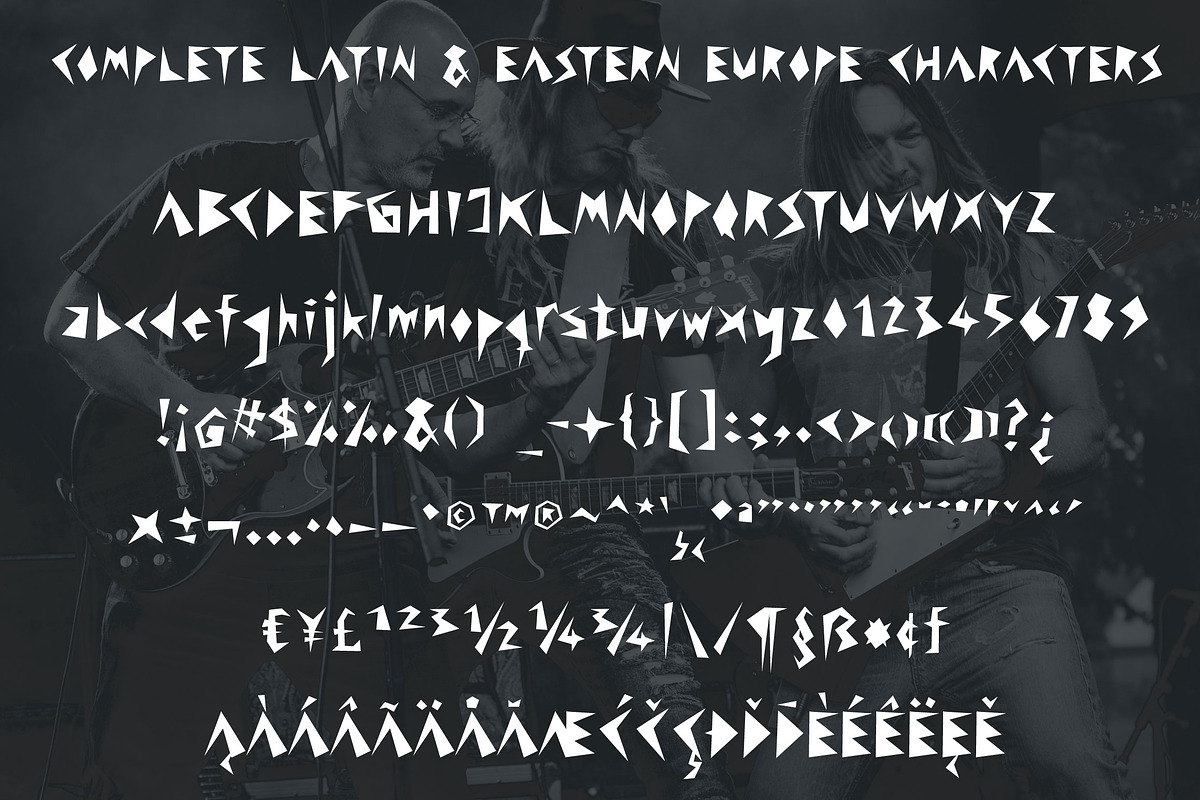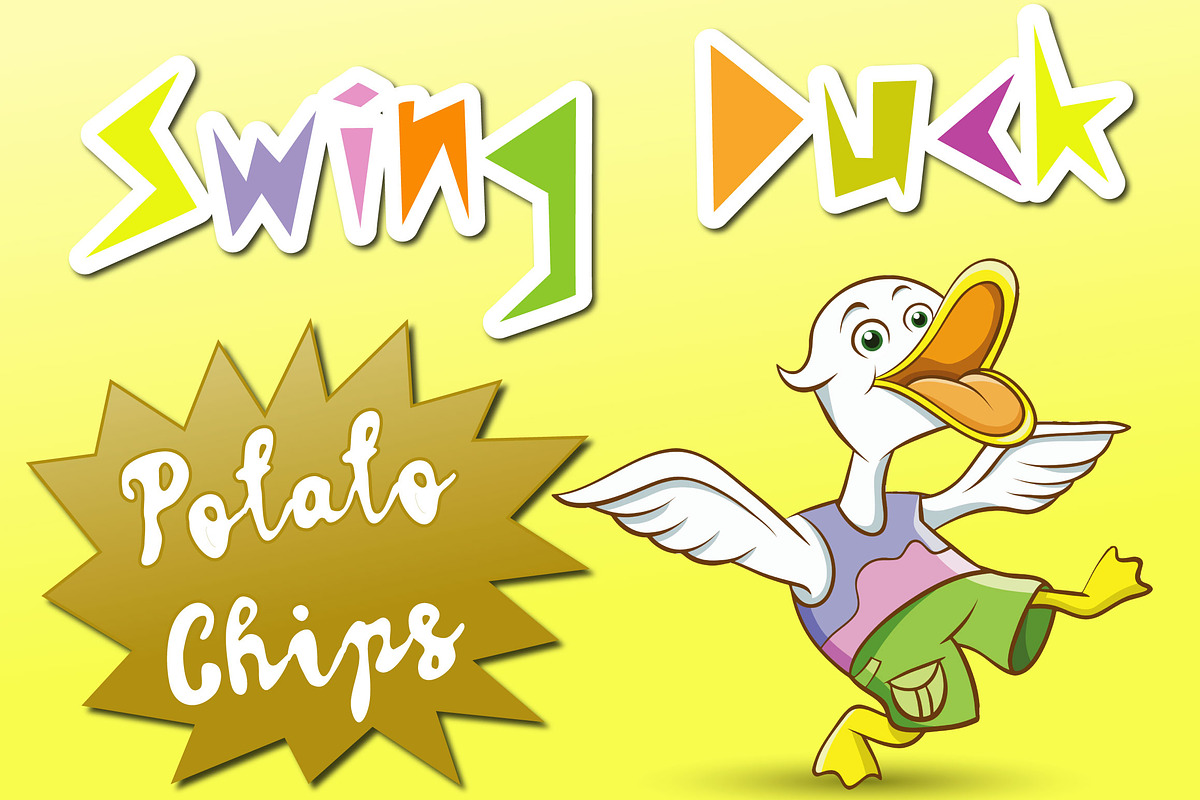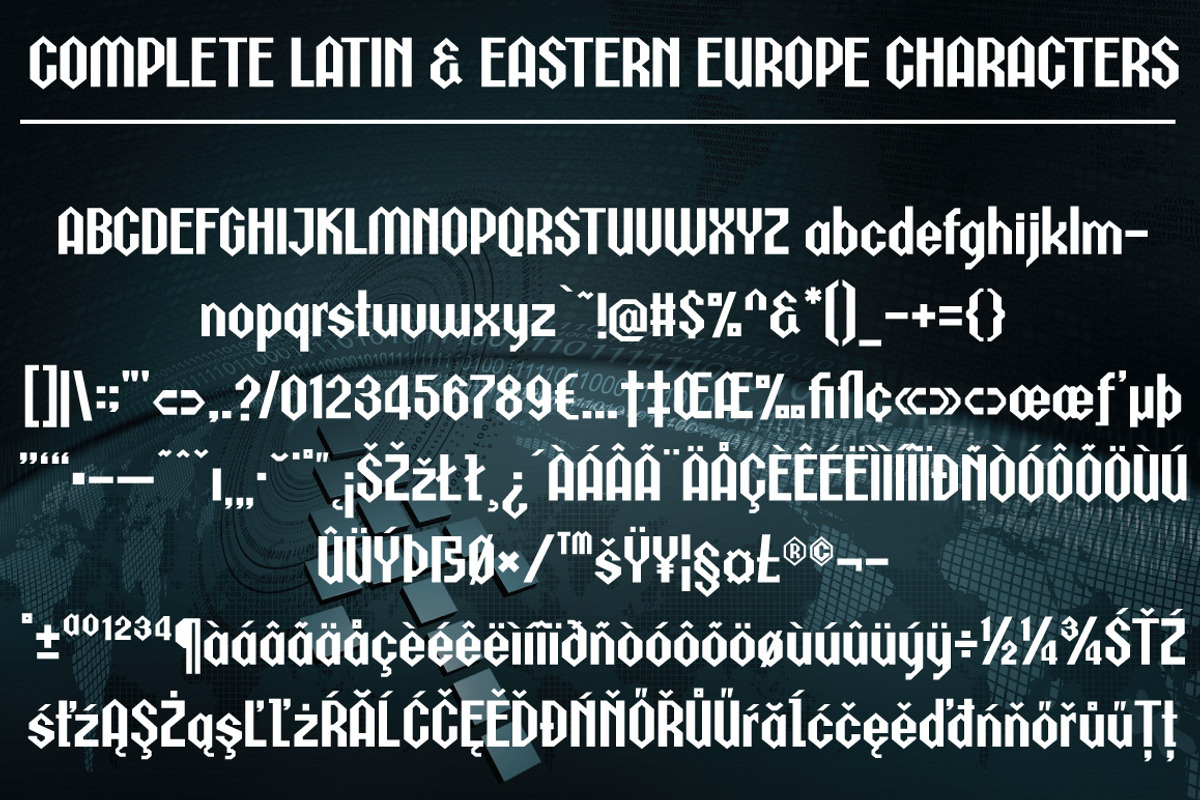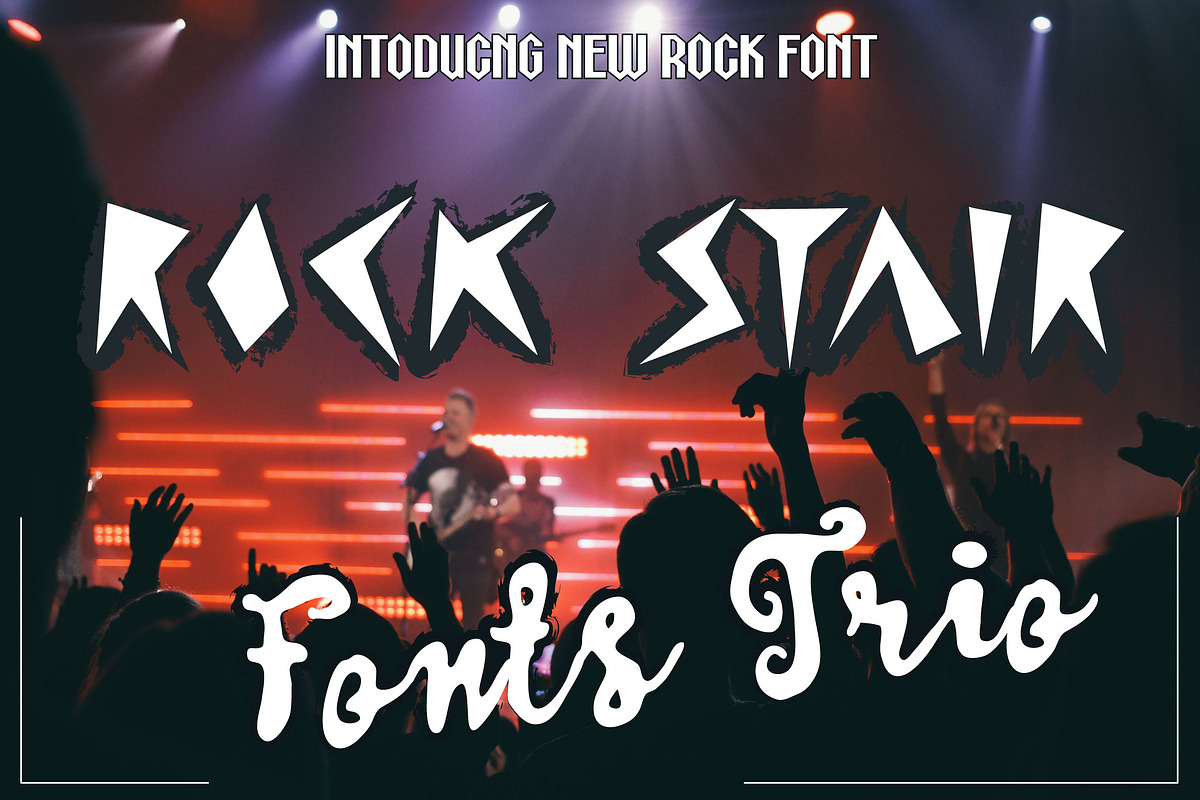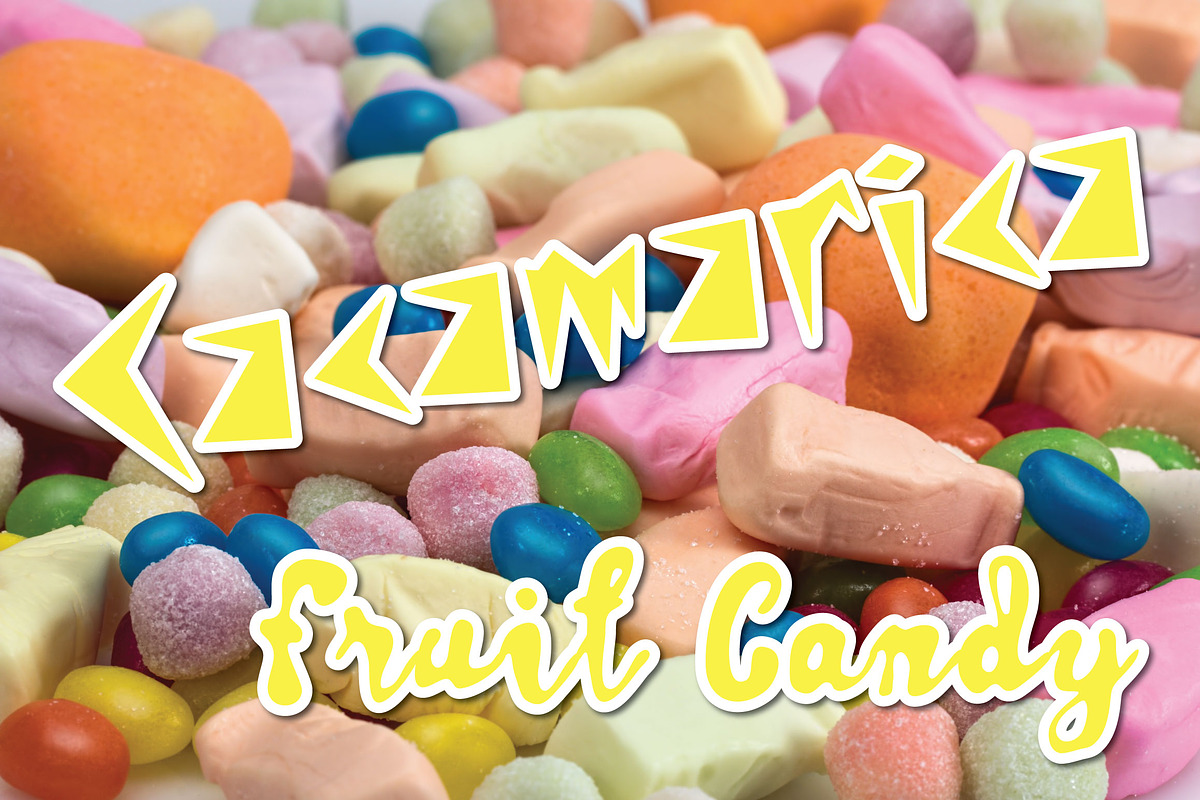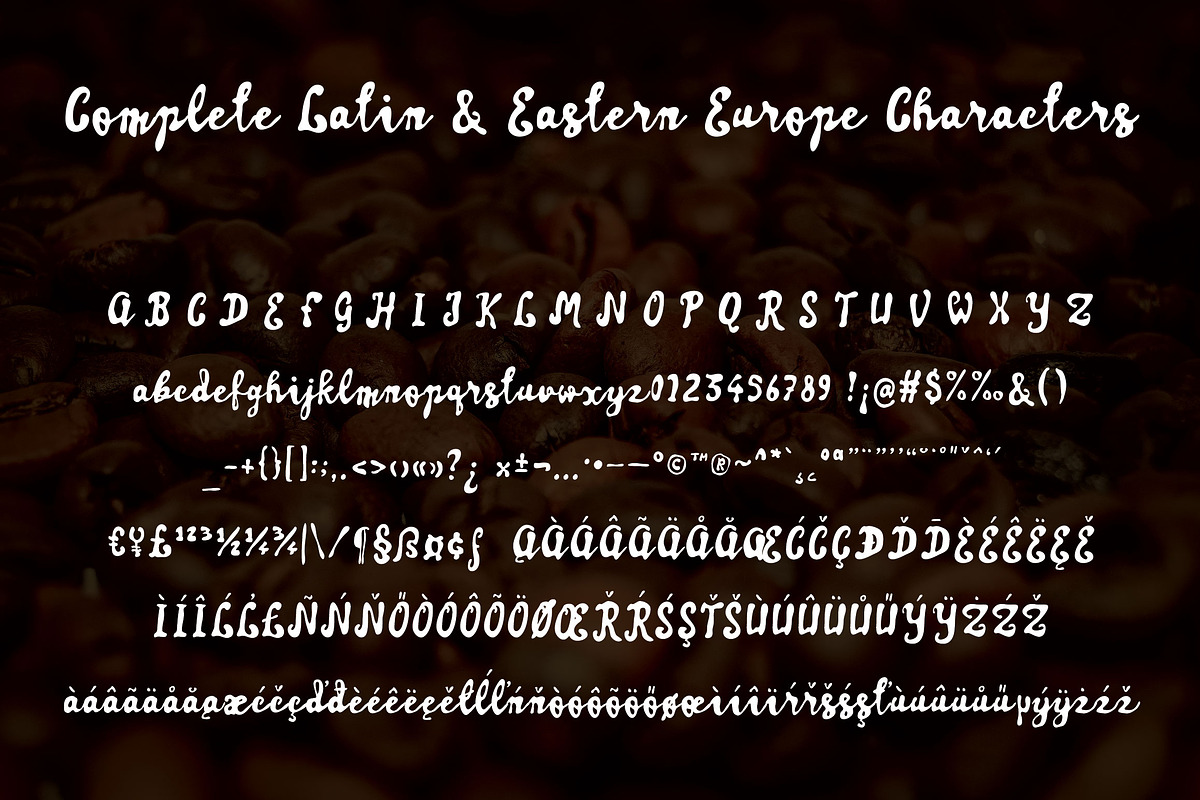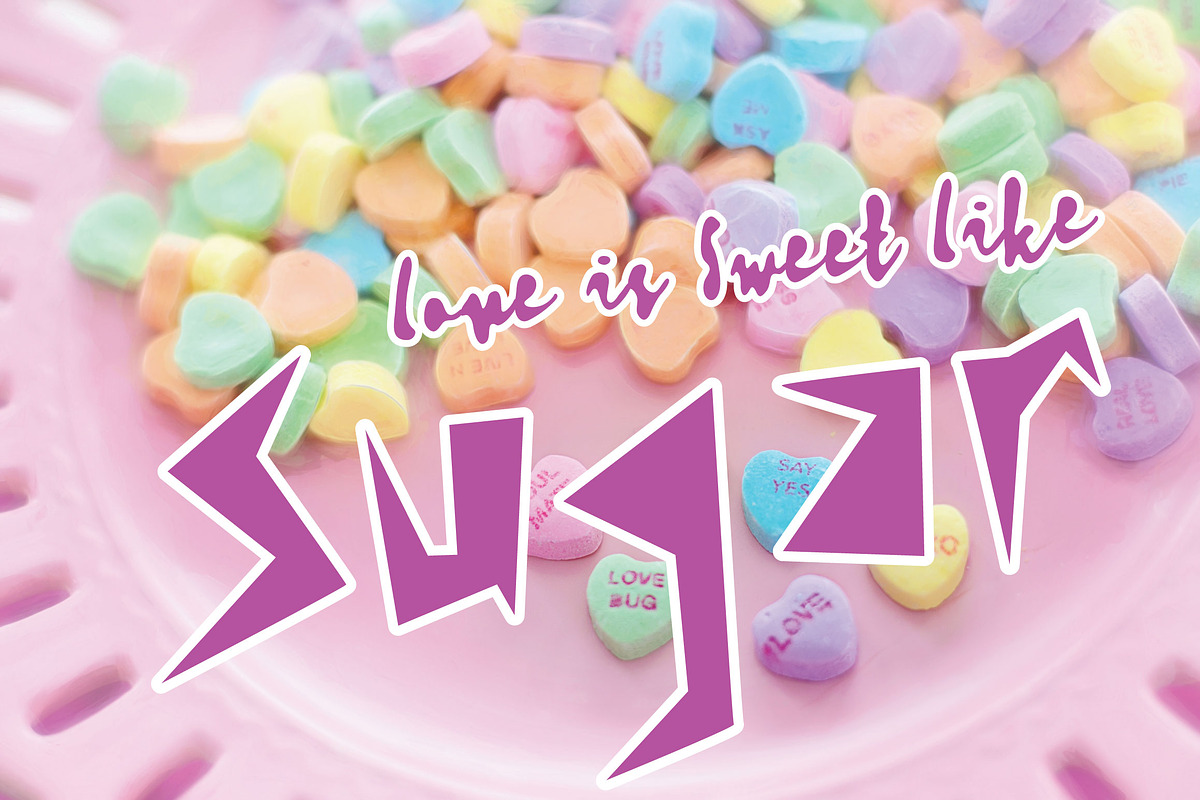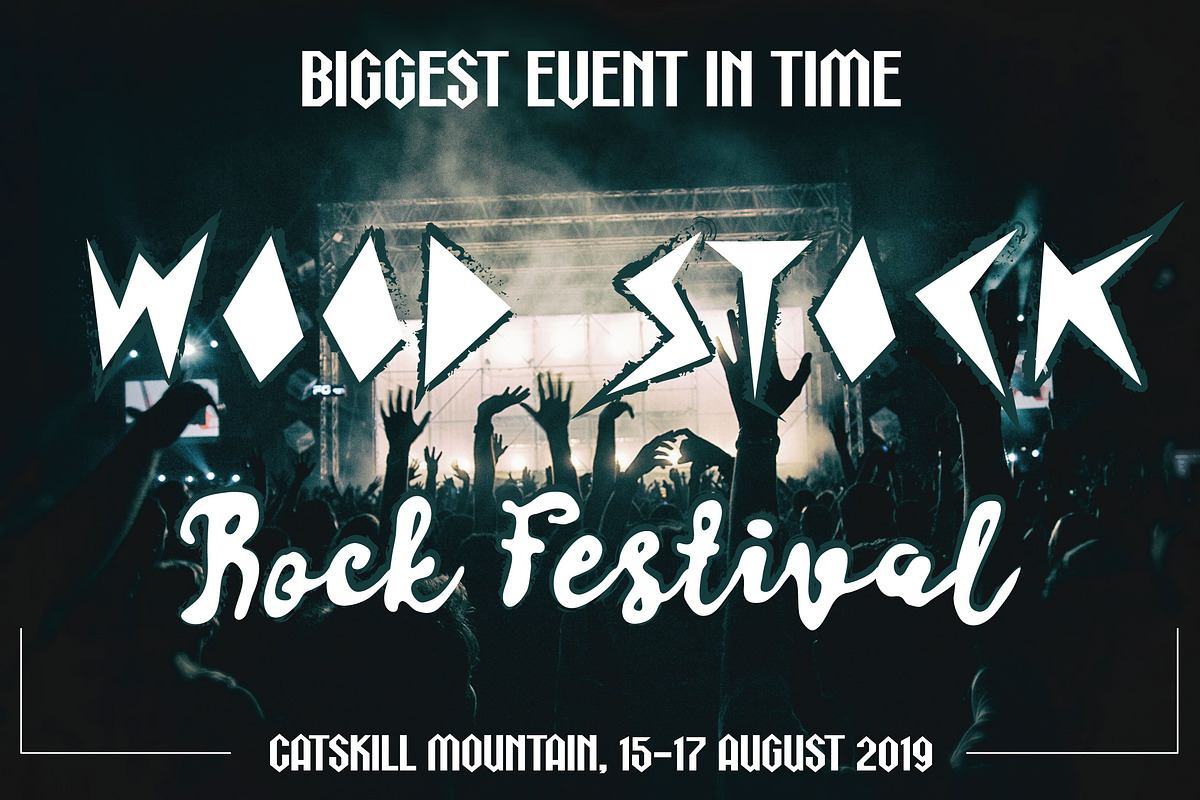
Rock Stair Font Trio
Introducing a new simple geometry font, this font will nice for rock theme, or lazy comic typeface. This font have 285 glyph who supported to basic Latin and Eastern Europe character.
Rock Stair Font Trio by Royaltype fits naturally into Branding, posters, packaging, typography.